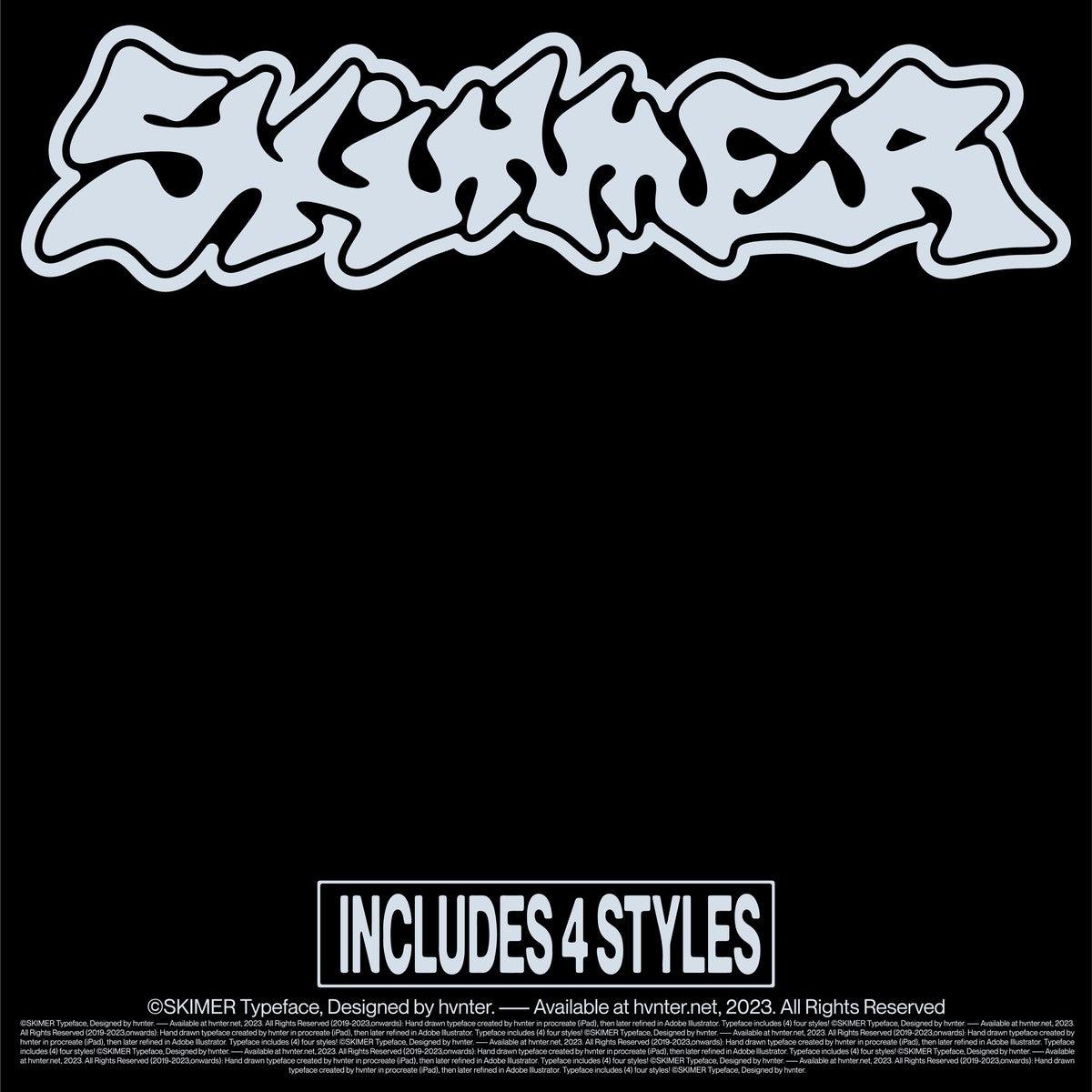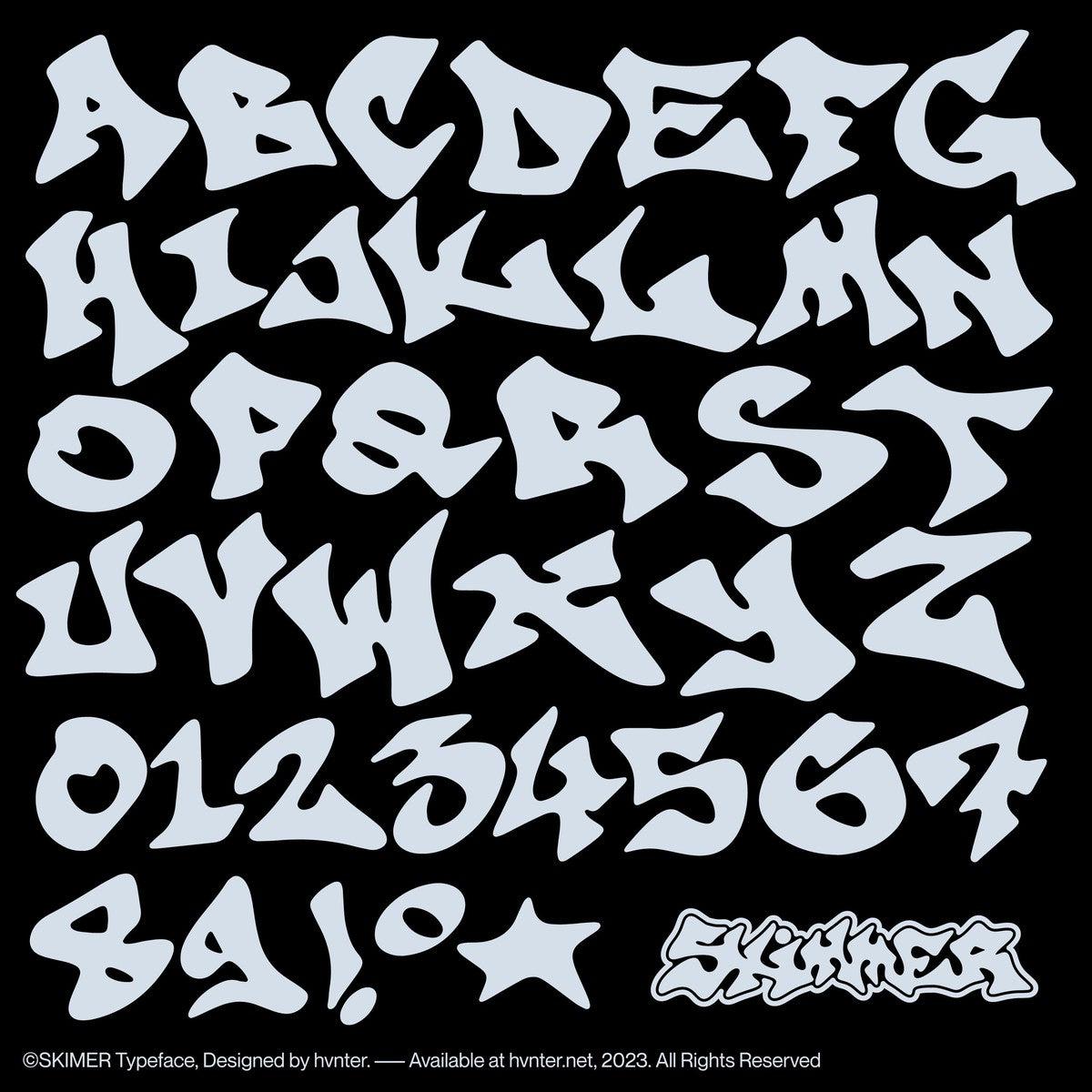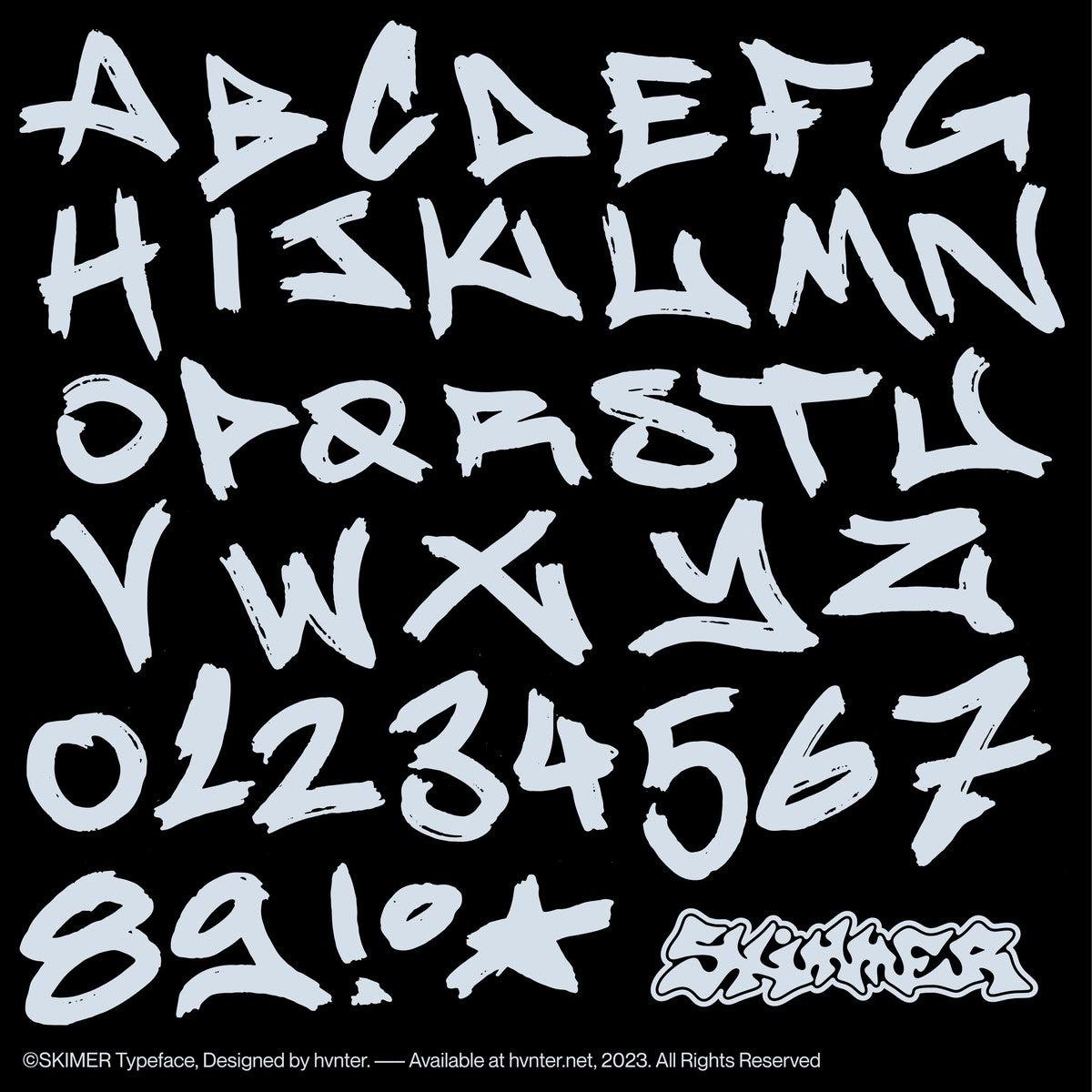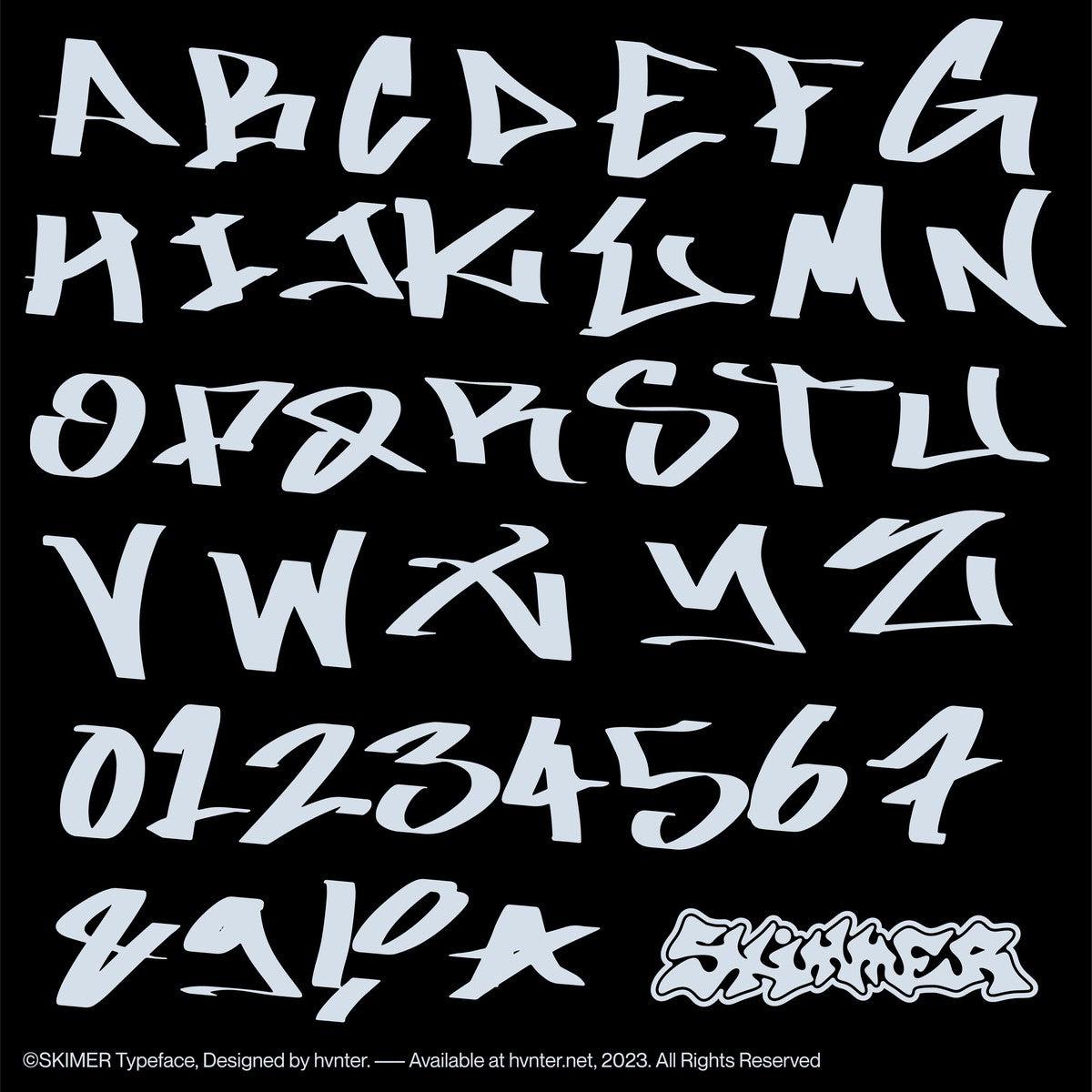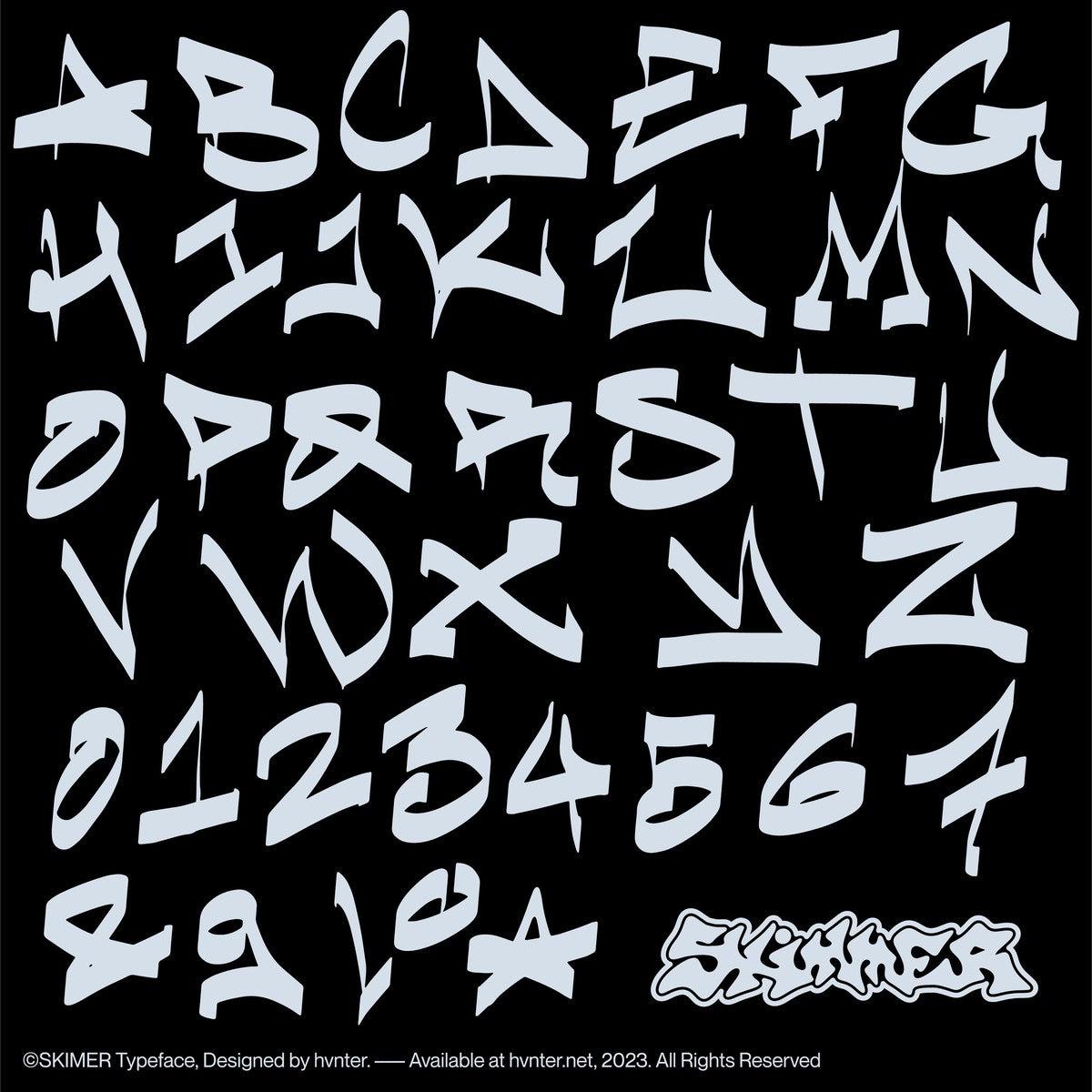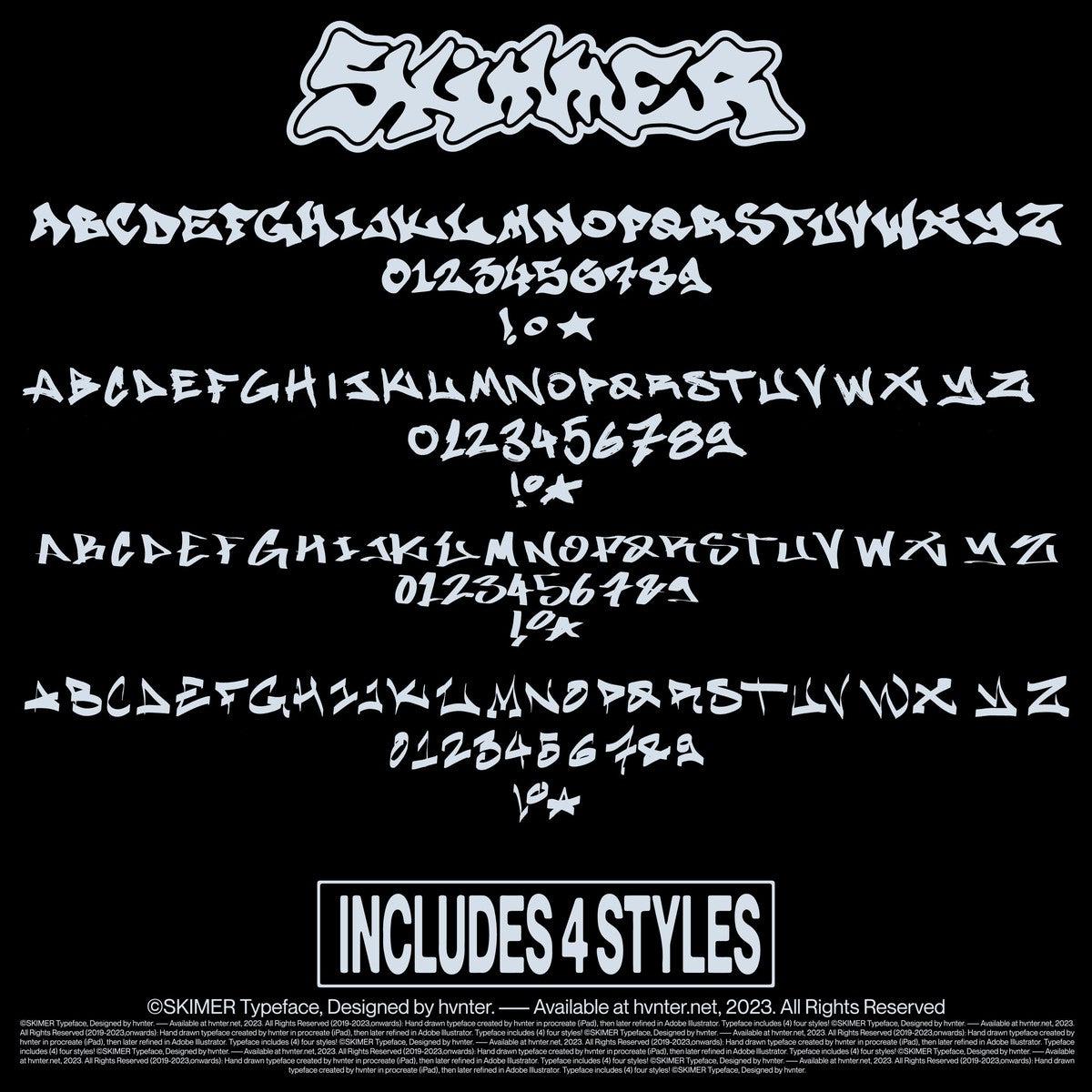
Skimmer Typeface
The Skimmer Typeface is a collection of four hand-drawn grunge fonts, each including characters A-Z, numbers 0-9, and basic symbols. The set comes as .otf font files and features four distinct styles as shown in the product images.
Ideal for grunge-inspired graphic design and streetwear branding. Perfect for posters, album covers, and merchandise, ensuring a unique, hand-drawn aesthetic that captures attention and evokes a vintage vibe.